Imagine crafting a striking advertisement or a sleek app interface, and the key to success lies not in elaborate graphics or vibrant colors, but in the understated elegance of a well-chosen font. Minimalist fonts, with their clean lines and uncluttered design, offer the perfect backdrop for modern font styles, allowing content to shine without overwhelming the viewer. Each typeface you choose can set the tone, whispering sophistication through simplicity, whether you’re going for a refined website design or effective branding strategies.
The beauty of free minimal fonts is that they provide access to high-quality typography without the financial burden often associated with premium designs. With a treasure trove of free typography resources available online, designers can explore various sans serif fonts and discover unique styles that cater to different projects—be it a chic logo or a straightforward flyer. Integrating these clean font designs into your work not only enhances readability but also embodies the ethos of modern minimalism, encouraging clarity and focus in a visually cluttered world.
The Rise of Free Minimal Fonts in Design
Minimal fonts are increasingly valuable in modern design due to their elegant simplicity. These fonts, stripped of unnecessary flourishes, allow your content to breathe, enhancing readability. For example, using a clean sans serif font can ensure that text is legible both on-screen and in print, making them ideal for everything from mobile apps to product packaging.
The trend towards minimalism reflects a broader design philosophy that values functionality and clarity. In contrast to ornate typefaces that can overwhelm, a minimalist font emphasizes the message rather than the medium. Designers have embraced free minimal fonts, recognizing their potential to reinforce brand identities while maintaining user-friendly interfaces.
Choosing the Right Minimal Fonts for Your Projects
When selecting free minimal fonts, consider the context of your project. A font like Enrique, with its rounded characteristics, works beautifully for branding needs in a friendly, approachable manner, whereas a more structured font like Virtuous Slab exudes professionalism appropriate for reports and presentations.
It’s not merely about aesthetics; the right font can also influence user experience. For instance, using a highly legible font like Bergen Text in smaller sizes ensures that your content remains accessible, even in dense informational layouts. Remember, the goal is to enhance communication, not complicate it.
Exploring Unique Characteristics of Popular Minimal Fonts
Among the diverse offerings of free minimal fonts, each carries its personality that can define the tone of your project. For example, Giraffey showcases a tall, condensed style great for fashion branding, making a bold statement in logo design. Alternatively, Dublin Minimal boasts clean lines, promoting a straightforward elegance suitable for tech products or creative portfolios.
Another standout is the Modern DIN-inspired Gidole, which balances robustness with contemporary flair. It’s particularly well-suited for headlines that need to capture attention while staying uncluttered. Such choices illustrate that minimal does not have to mean mundane; rather, it opens doors to creative exploration in typography.
Incorporating Minimal Fonts Into Your Design Workflow
Incorporating free minimal fonts into your design workflow can lead to streamlined processes and improved visual coherence. When you opt for fonts like Less Sans or Athena, their clear structures not only simplify text hierarchy but also align with modern design principles. A well-defined typeface leads to a uniform look across various materials, whether it’s a website or promotional brochure.
Utilizing CSS styles such as `font-family: ‘Athena’, sans-serif;` seamlessly integrates these fonts into web design, ensuring they render beautifully on multiple devices. Furthermore, consider using tools like Google Fonts to easily browse, test, and implement these fonts directly into your projects. This way, adopting minimalistic typography becomes a fluid part of your design process.
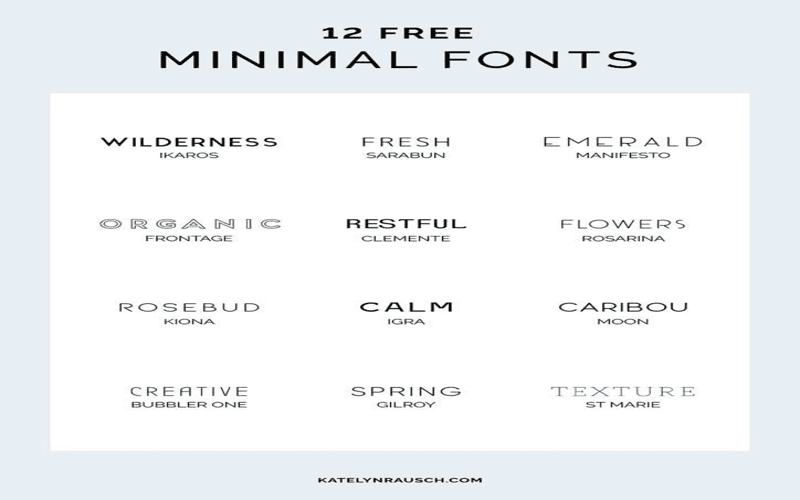
Frequently Asked Questions
What are some examples of popular free minimal fonts for modern design?
Some popular free minimal fonts include Enrique Sans Serif, Virtuous Slab, and Giraffey. These fonts are known for their clean lines and high legibility, making them perfect for various projects, from branding to user interfaces. They fit well into the category of minimalist fonts and modern font styles.
Where can I find free typography resources for minimal and clean font designs?
You can find a variety of free typography resources for minimal and clean font designs on websites like Behance, Envato Elements, and Graphic Pear. These platforms offer a wide selection of sans serif fonts and other minimal styles that can be downloaded for personal and commercial use.
How do minimalist fonts enhance modern designs?
Minimalist fonts enhance modern designs by emphasizing clean aesthetics and improving readability. With their simple structures and lack of embellishment, these fonts help convey messages effectively without overwhelming the viewer, making them ideal for contemporary branding and digital interfaces.
• Focus enables impactful designs with its simplicity, perfect for large, attention-grabbing statements.
• The Factory LJDS font offers a unique serif option, ideal for minimalistic branding.
• Spartan MB stands out with its geometric aesthetic, featuring numerous weights for added versatility.
• Blogger Sans was crafted specifically for web headlines, providing flexibility in online content.
Delve into these minimal fonts as you consider expanding your design toolkit with exceptional options.